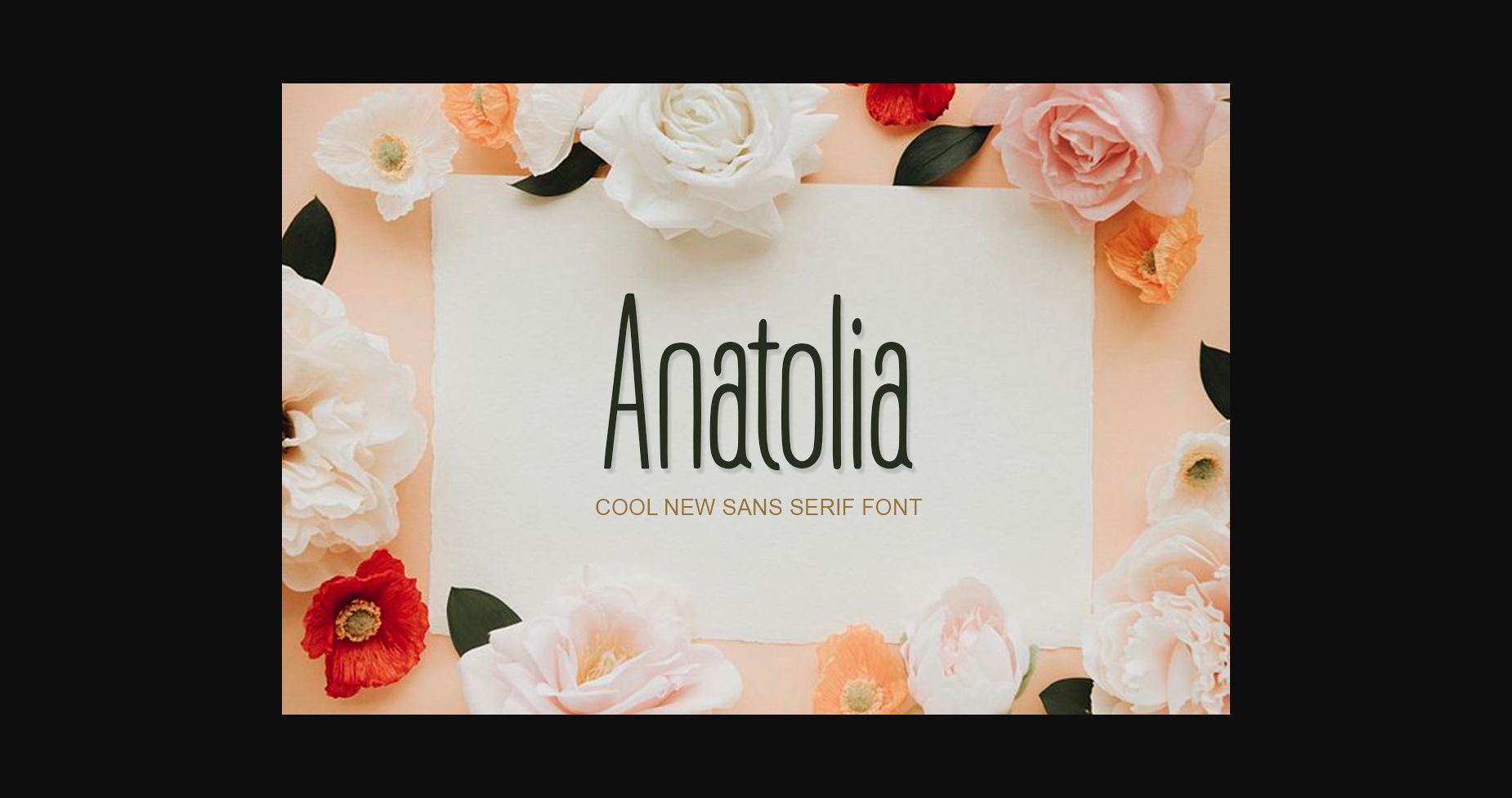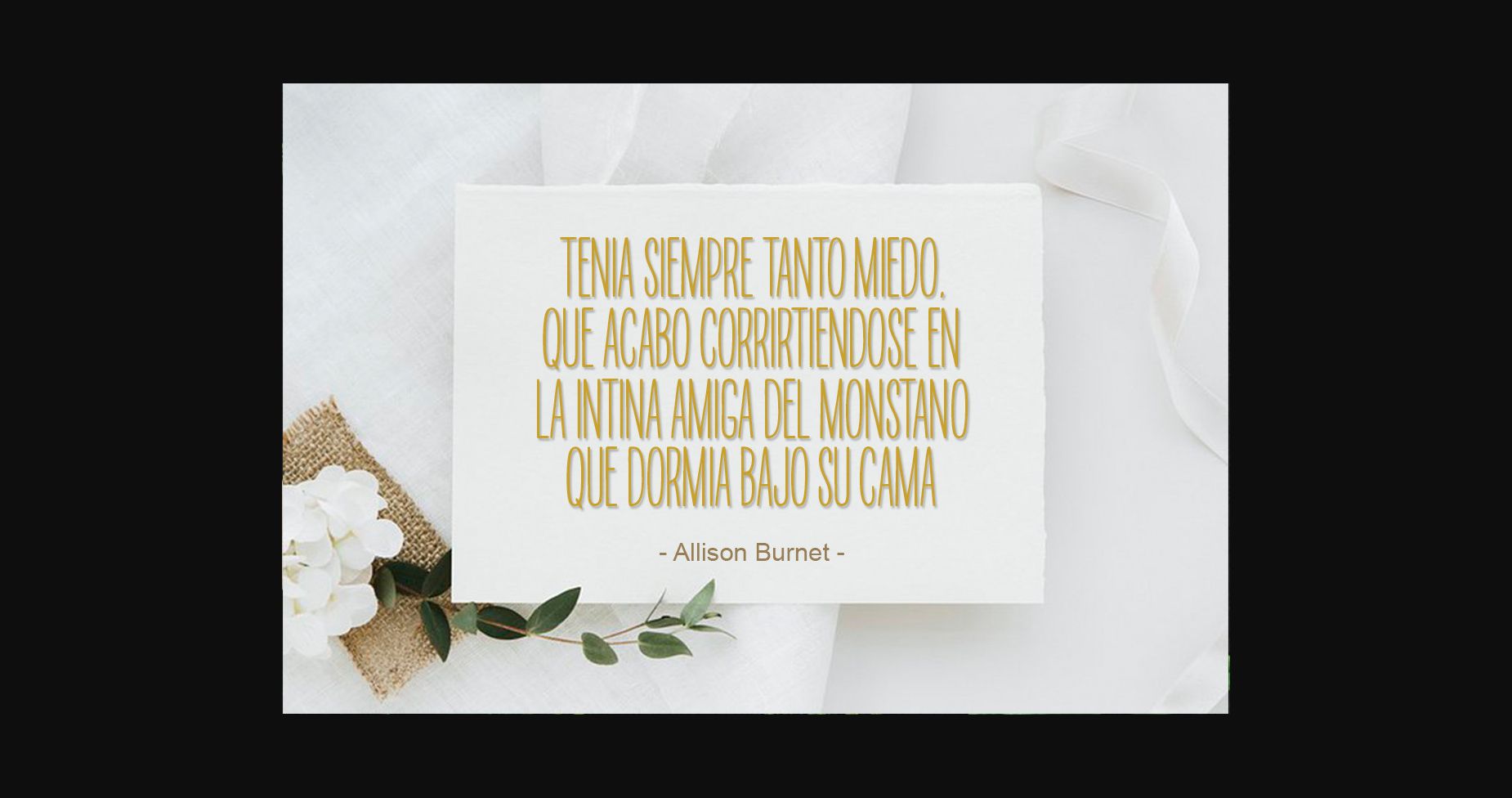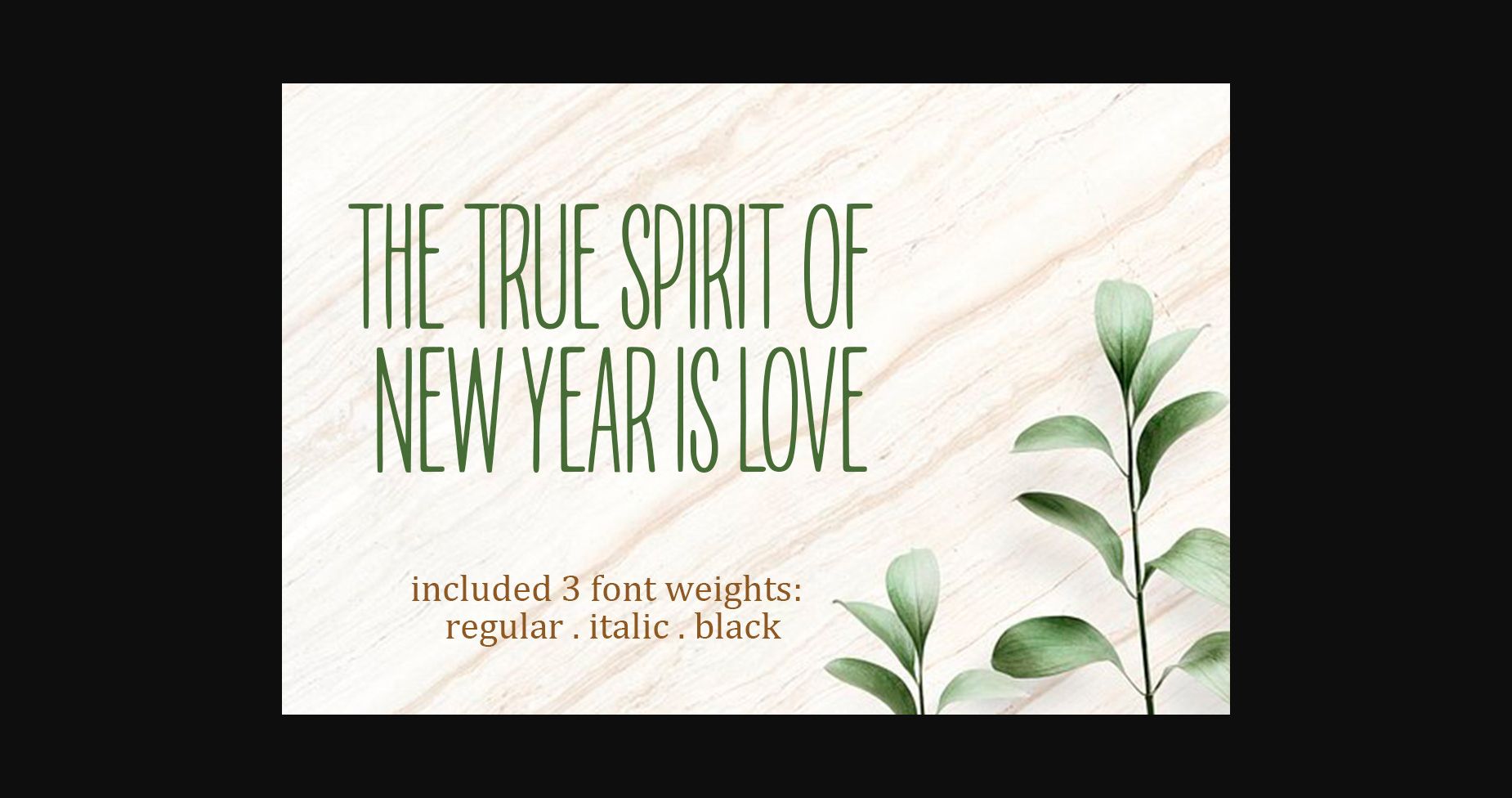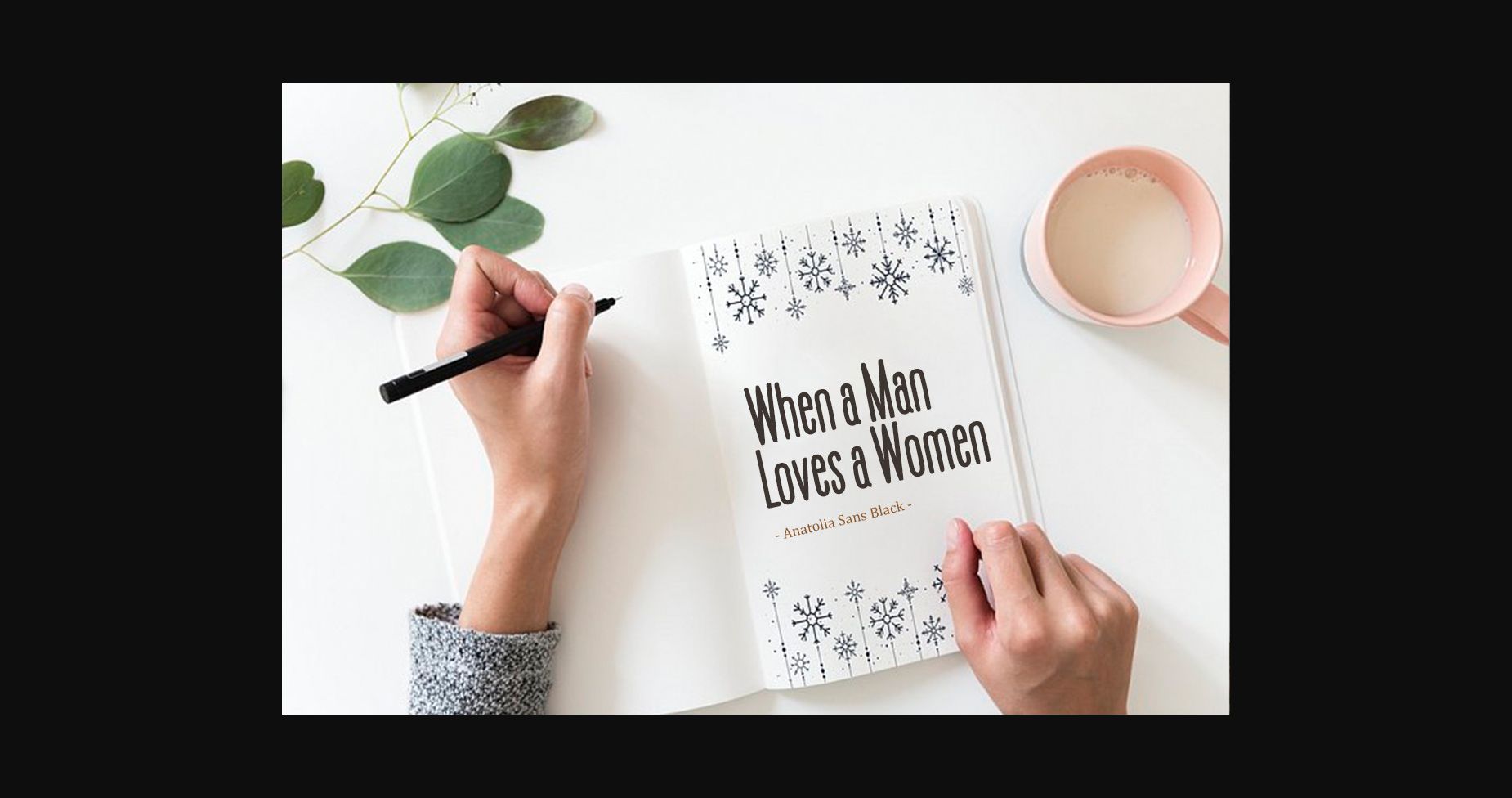
Anatolia Font
About Anatolia Font
Introducing Anatolia Fonts; Harmony of stylish & modern sans typography. With a free-flowing, high-density sans-serif font, Anatolia offers beautiful contrasting typography for a wide variety of design projects, including; logo & branding, packaging design, social media post, advertising & product design. Anatolia contains 3 font files, designed to serve as the perfect companion or strong standalone typography;
Anatolia Sans • A highly dense sans-serif font containing uppercase & lowercase characters, numbers, and lots of punctuation. Creates the perfect contrast pair with Anatolian fonts.